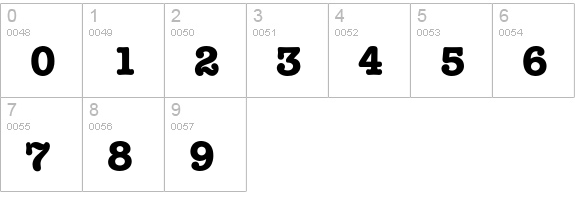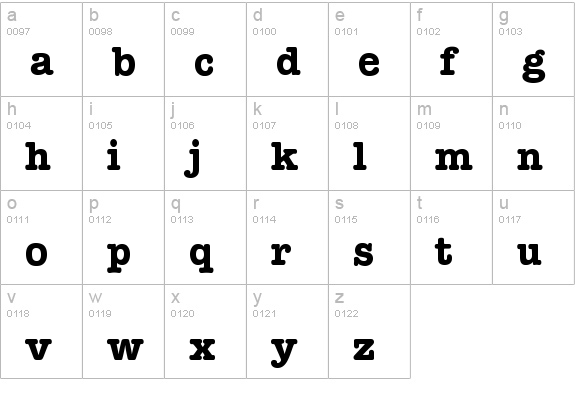
American Typewriter* Bold is a strong, high-contrast variant in the American typeface family \xE2\x80\x94 well suited to headlines, attention-grabbing titles, and strong calls-to-action.
American Typewriter Bold is a classic and timeless font that exudes a sense of nostalgia and craftsmanship. With its sturdy and confident appearance, this font is perfect for conveying a sense of reliability and professionalism in your designs. The bold weight of American Typewriter adds a strong presence to any project, making it stand out while maintaining a sense of elegance. What makes American Typewriter Bold even better is that it is available for free download at FontsMarket.com. Now you can add this versatile and iconic font to your collection without any cost, allowing you to elevate your designs without breaking the bank. Whether you're working on a vintage-inspired project or looking to add a touch of sophistication to your branding, American Typewriter Bold is the perfect choice. Download it today and discover the endless possibilities this font has to offer.